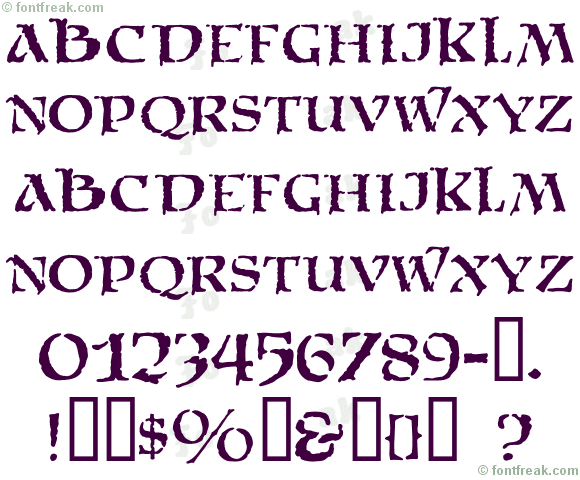
Satans Minions
The Satans Minions font by Mickey Rossi is a unique decorative typeface that stands out with its whimsical yet edgy character. This font is categorized as a display typeface, making it ideal for attention-grabbing headlines and standout text. Its visual characteristics include a bold stroke weight, uneven edges, and a playful contrast that gives it an almost hand-crafted appearance. The spacing is generous, allowing for easy readability while maintaining a distinct style, making it perfect for various creative applications.
Best suited for projects that require a touch of the unconventional, the Satans Minions font is particularly effective for movie posters, graphic novels, and merchandise aimed at a younger, alternative audience. It can also add a fun twist to Halloween invitations or themed events, where its quirky, devilish flair can enhance the overall aesthetic. Small business owners in the entertainment or creative sectors will find this font particularly appealing for branding that seeks to convey a sense of fun and rebellion.
The target audience for this typeface primarily includes graphic designers, content creators, and small business owners looking to inject personality into their projects. Whether you're designing a flyer for a local event or creating a striking visual for social media, the Satans Minions font free download provides an excellent option for those seeking something different.
What sets the Satans Minions font apart is its ability to blend playful whimsy with a touch of darkness, making it versatile enough for a variety of creative uses. This font not only captures attention but also invites curiosity, making it a valuable asset for anyone looking to make a bold statement in their designs.